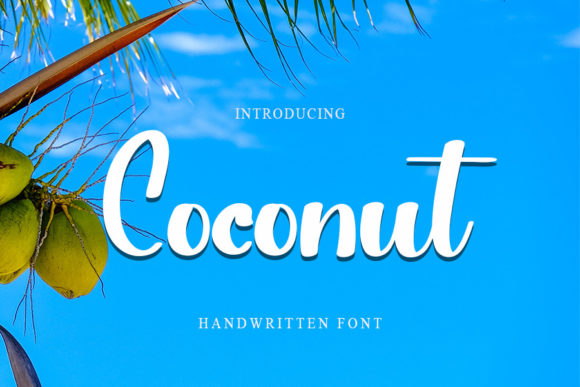
**Coconut Font: Cool Handwritten Modernity**
Introducing *Coconut Font*, a cool handwritten typeface infused with a modern vibe and spotless form. Inspired by classic calligraphy, this font strikes the perfect balance – not too thin, not too thick, and offering a varied and balanced design. Crafted to enhance the beauty of your projects, *Coconut* adds a touch of contemporary flair to your creative endeavors.
The charm of *Coconut* lies in its ability to seamlessly blend modernity with classic calligraphic inspiration. Each letter is carefully designed, capturing the essence of handwritten style while introducing a clean and spotless form. The result is a font that exudes a cool and modern aesthetic, making it suitable for a wide range of applications.
Whether you’re working on branding materials, posters, or any other design project, *Coconut* adapts effortlessly. Its versatile design allows it to complement different styles and enhance the visual appeal of your creations.
Consider *Coconut Font* as a stylish tool that empowers you to infuse a cool and modern vibe into your designs. Each letter contributes to a visual experience that transcends traditional calligraphy, turning your projects into contemporary works of art.
In summary, *Coconut Font* is more than just a typeface; it’s an invitation to elevate your designs with cool handwritten modernity. Embrace its balanced and varied form, allowing it to become the key element that enhances the beauty of your creative endeavors.